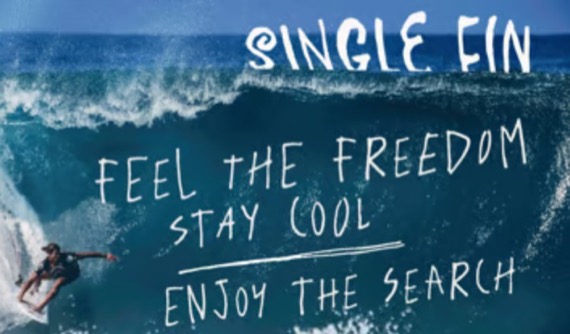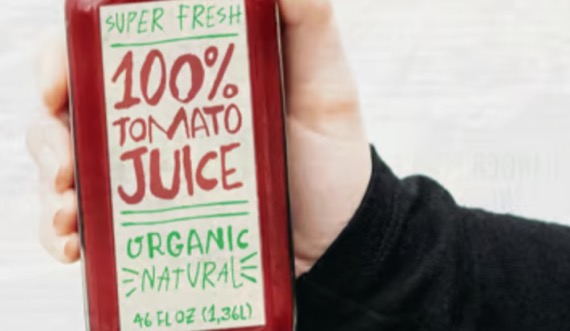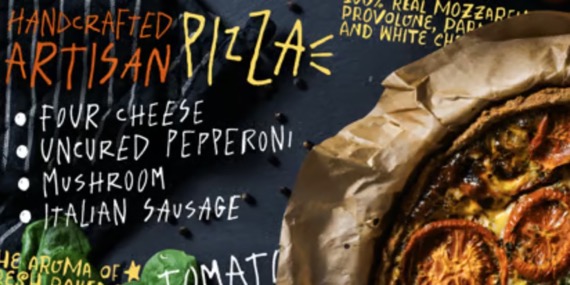
Plunct Plact is a cool and modern brush handwritten font family designed by Erica Jung, Ricardo Marcin and published by PintassilgoPrints. It contains 2 styles and family package options. If you say it, say it cool that’s worth a thousand words.
Plunct Plact Brush Handwritten Font
Designer: Erica Jung, Ricardo Marcin, Publisher: PintassilgoPrints